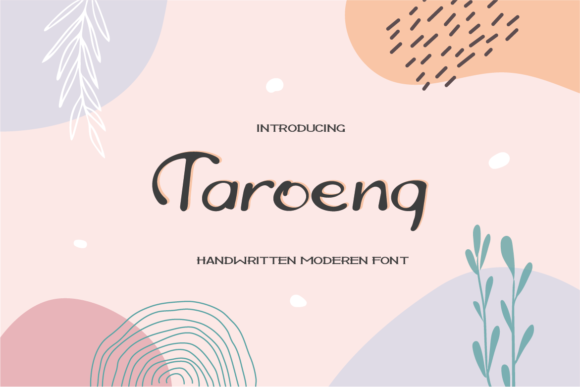
Indulge in the enchanting beauty of Taroeng, a captivating script font that will elevate your designs with a touch of whimsical charm. Crafted by the skilled artisans at aksaratrabas, Taroeng embodies the essence of romance and elegance, making it the perfect choice for creating stunning wedding logos.
With its intricate curves and swoon-worthy flourishes, Taroeng dances across the page, evoking a sense of joy and celebration. Its sweet and bubbly nature transforms ordinary designs into enchanting masterpieces, adding a touch of personality and warmth to every project.
Whether you're designing invitations, save-the-dates, or any other wedding-related materials, Taroeng will seamlessly weave its magic, captivating the hearts of all who behold it. Its versatility extends beyond the realm of matrimony, making it a charming choice for greeting cards, social media graphics, and any project in need of a touch of whimsy.
So embrace the enchanting allure of Taroeng and let your designs blossom with love and happiness. Its ability to transform the ordinary into the extraordinary will leave an unforgettable impression on your audience, ensuring that your brand shines brightly in the sea of competition.